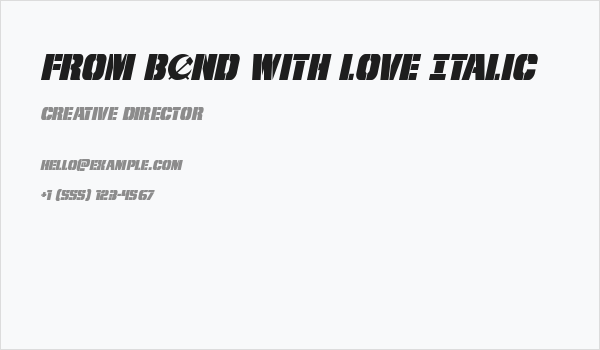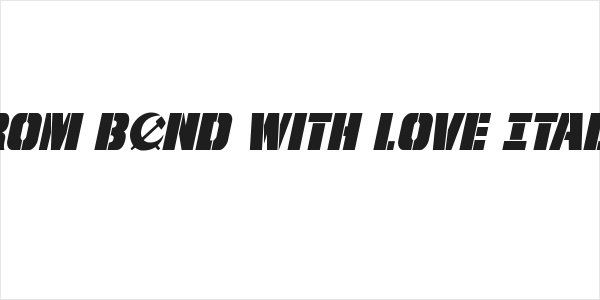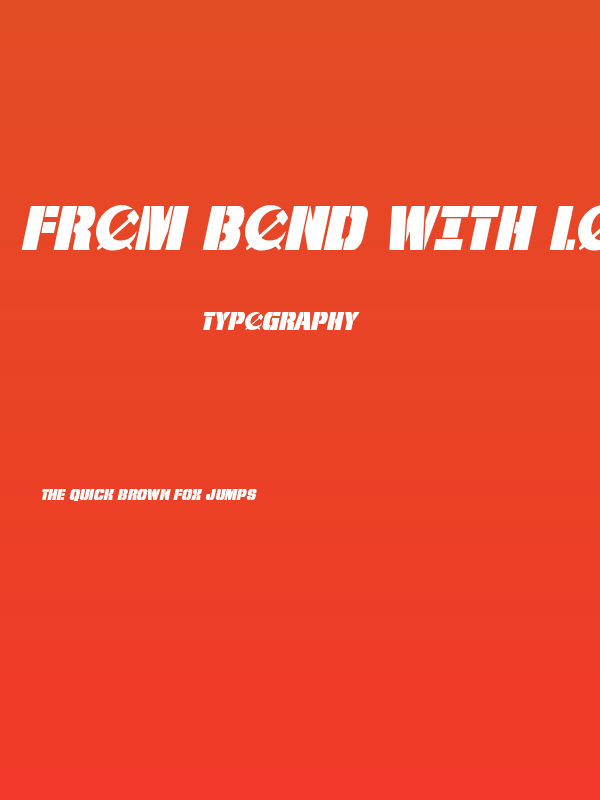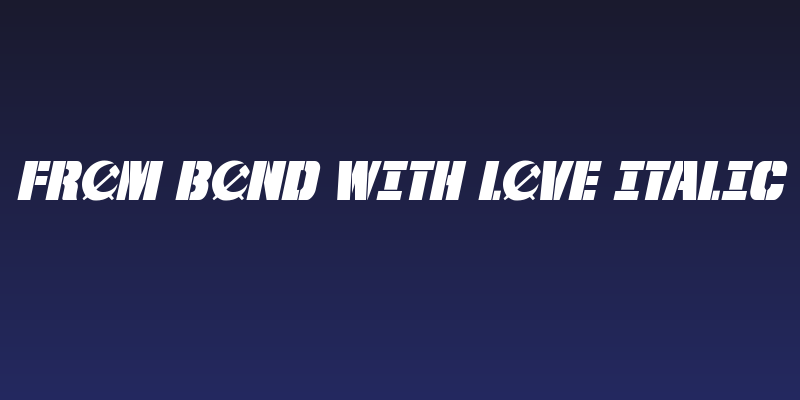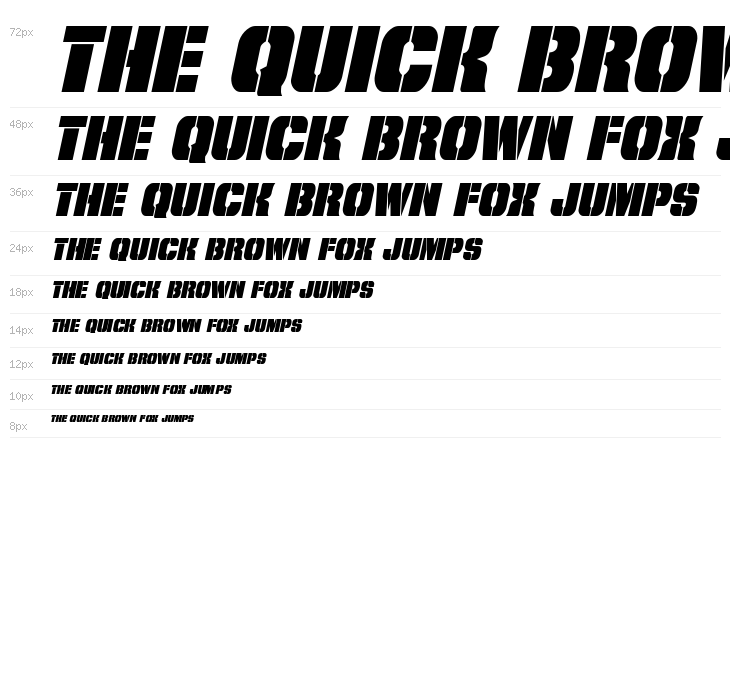
From BOND With Love Italic Font
From BOND With Love Italic Description
This font features a bold, italicized style with a strong, impactful presence. The characters are designed with a stencil-like appearance, giving them a modern and edgy look. The uppercase letters are particularly striking, with sharp angles and a sense of movement. The numbers and special characters maintain this bold aesthetic, ensuring consistency across all elements. The font's unique style makes it suitable for projects that require a strong visual impact.
| Proposed Projects | Ideal for branding, posters, headlines, and any design requiring a bold statement. |